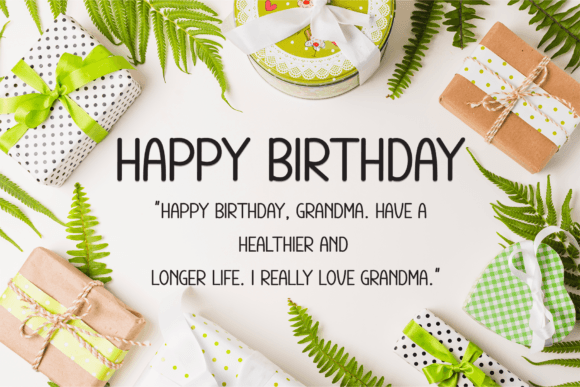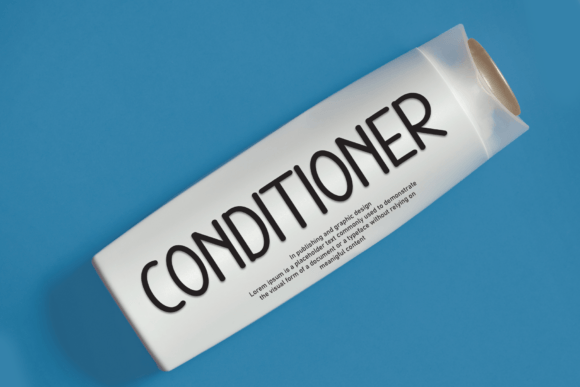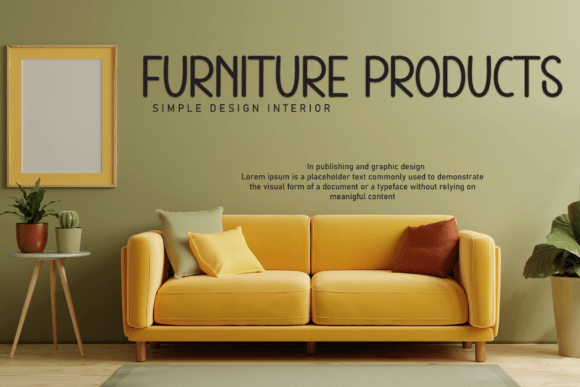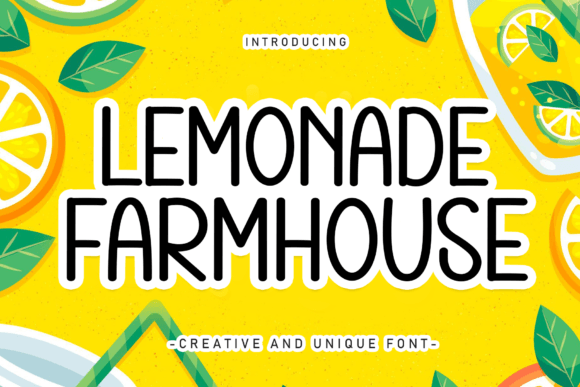
Introduction to Lemonade Farmhouse Font
Lemonade Farmhouse is a sweet and friendly handwritten font.
Fresh and cute, this font is ideal for writing wedding invitations, cards, or any other design that might need a fun touch .